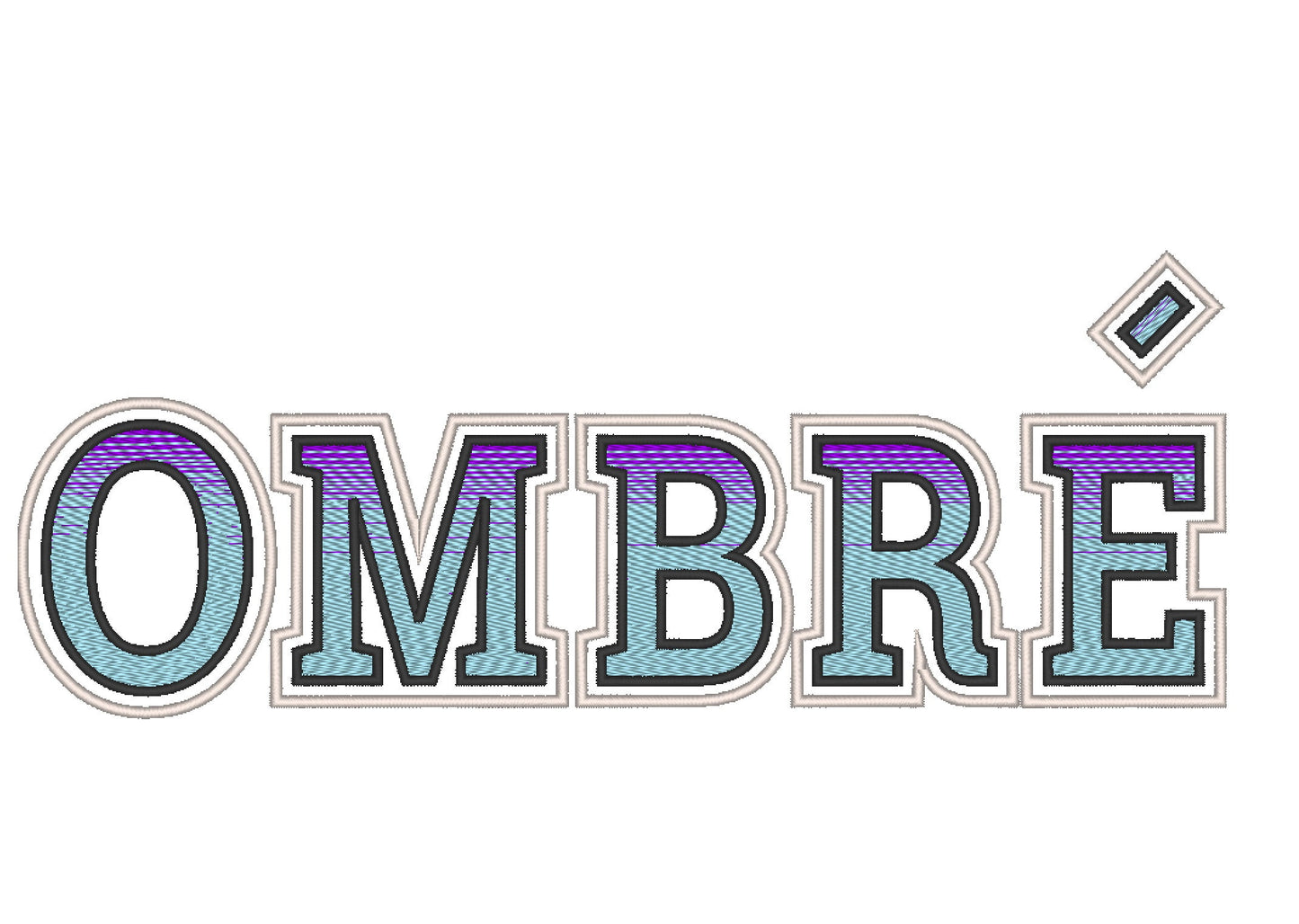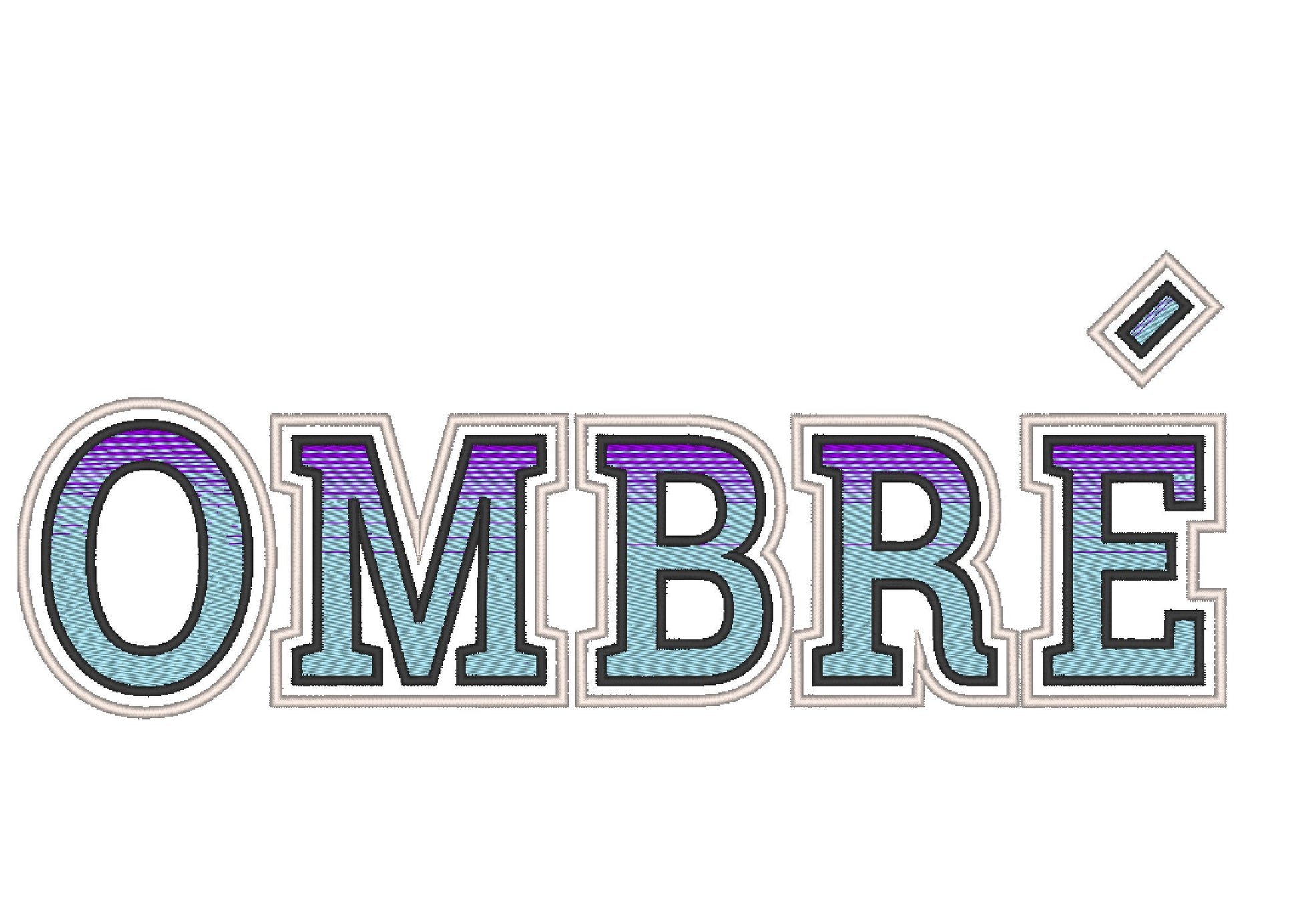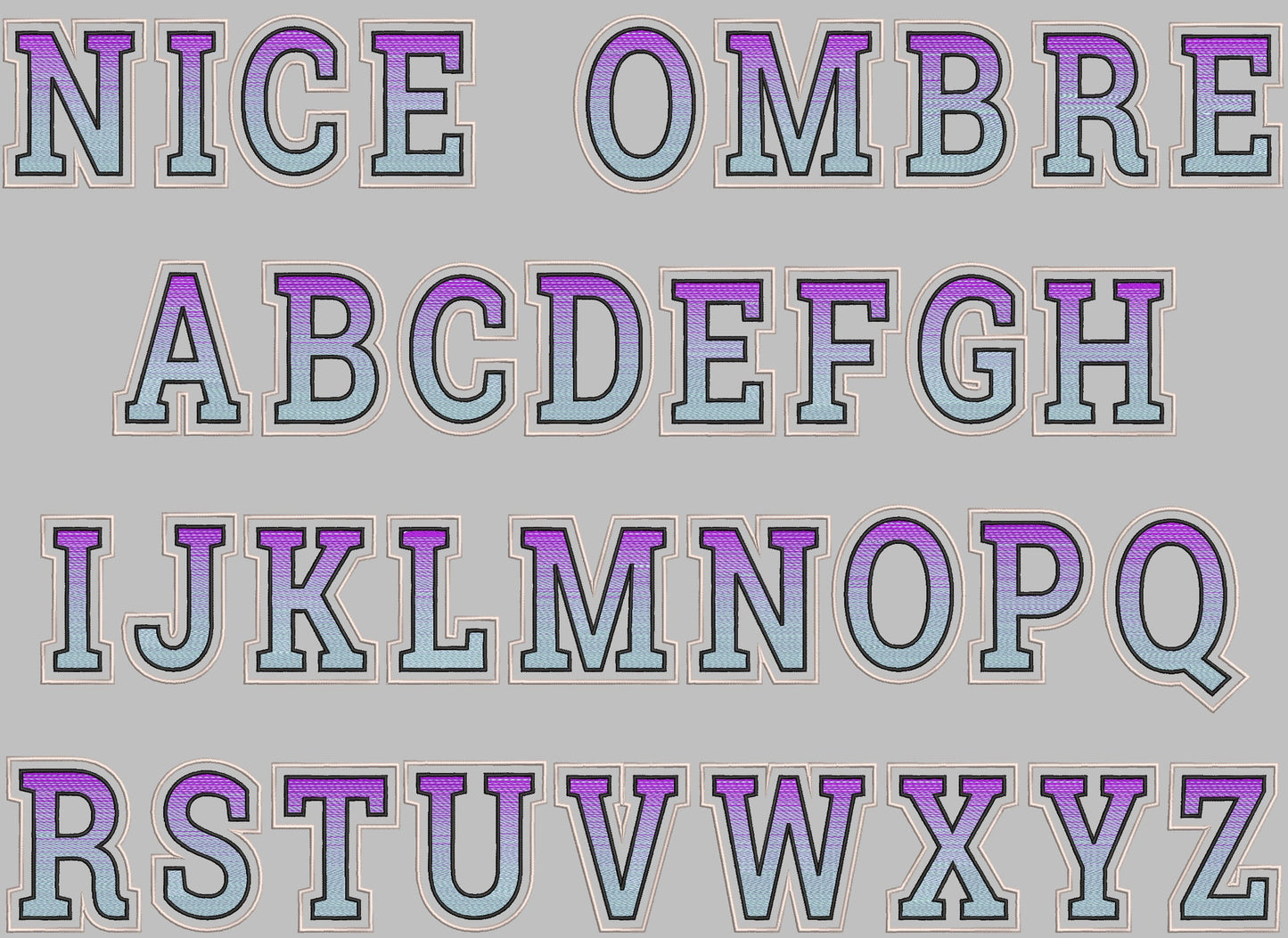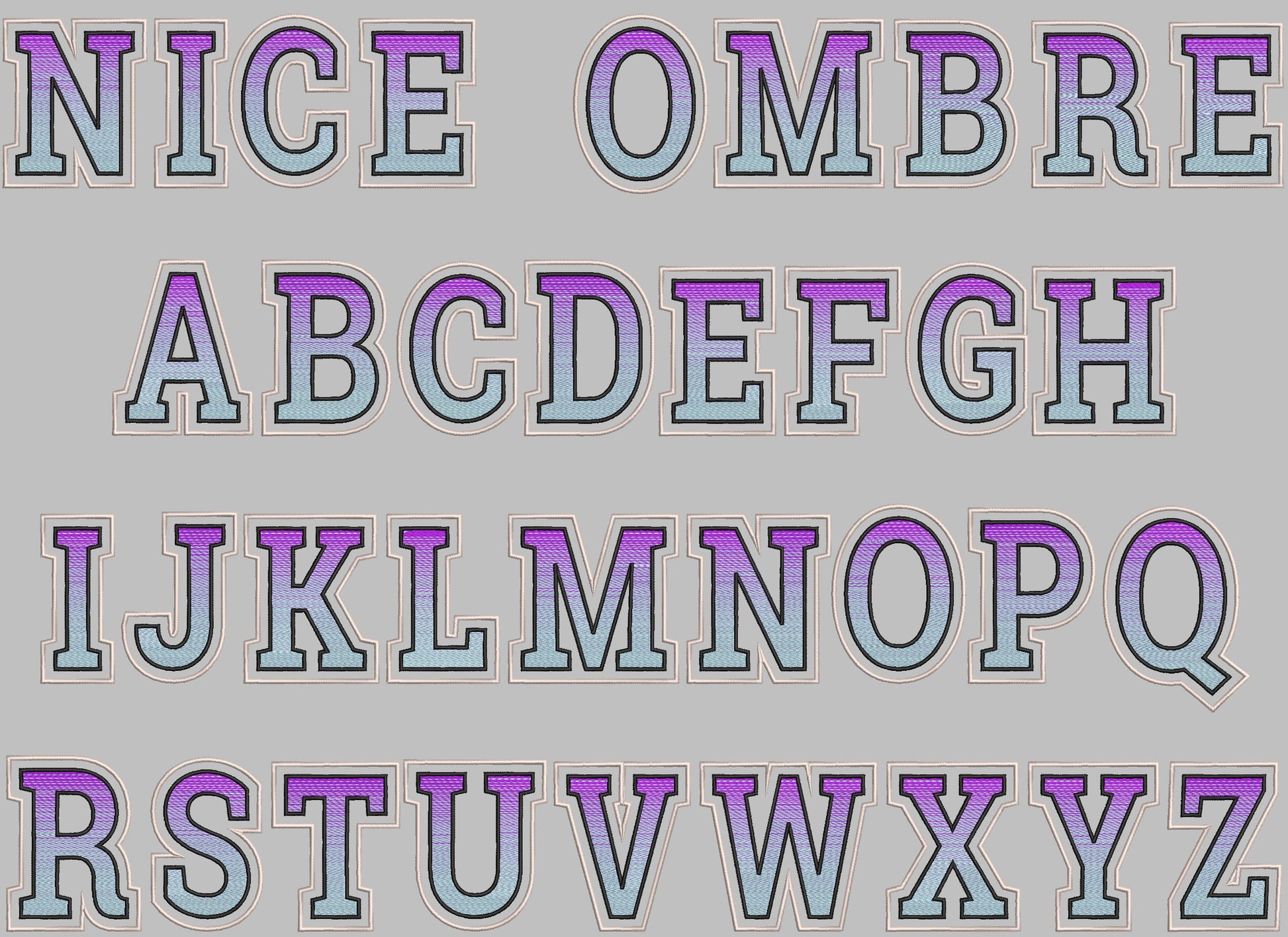
Or click to open the linkAn iridescent varsity block font stitched with two ordinary thread colors that blend into a gradient. Great for sorority, team and school names.
No special thread: one side of each letter is stitched mostly in one color and the other side in the second. Uppercase letters, numbers and a few signs in eight sizes: 1.4, 2, 2.5, 3, 3.5, 4.5, 5.5 and 6.5 inches.